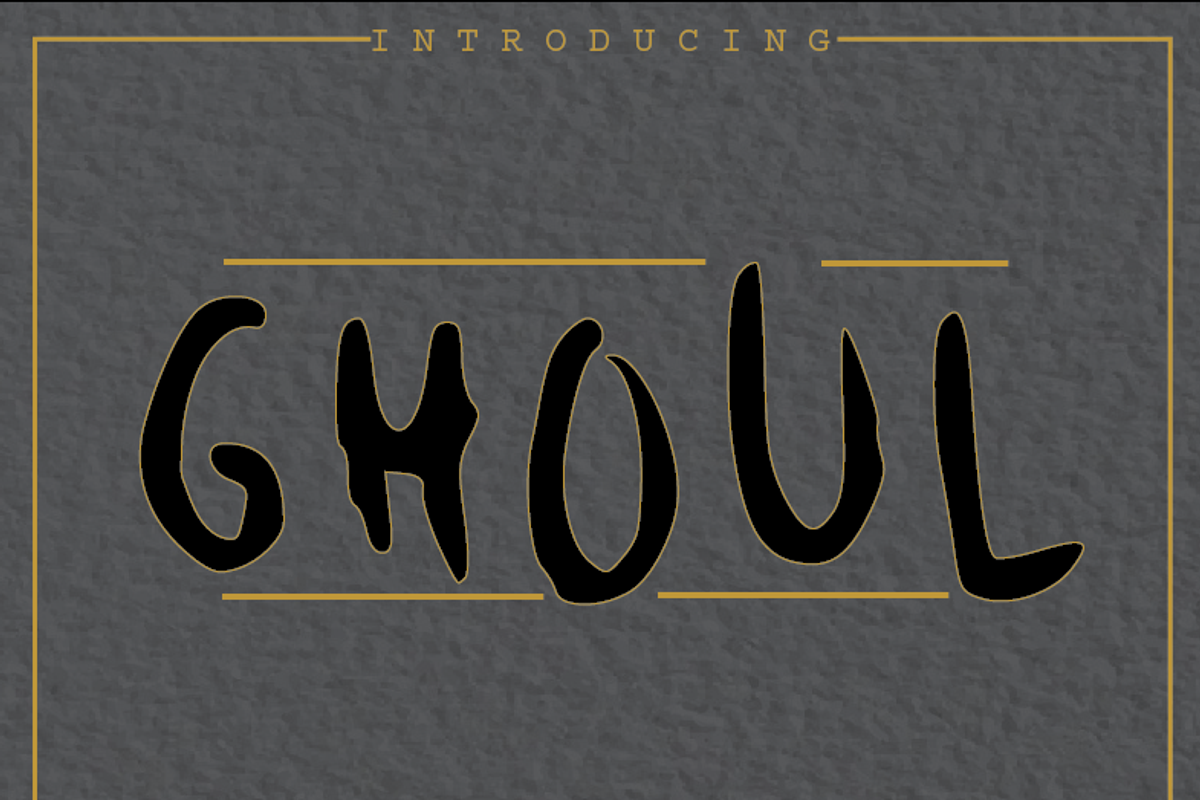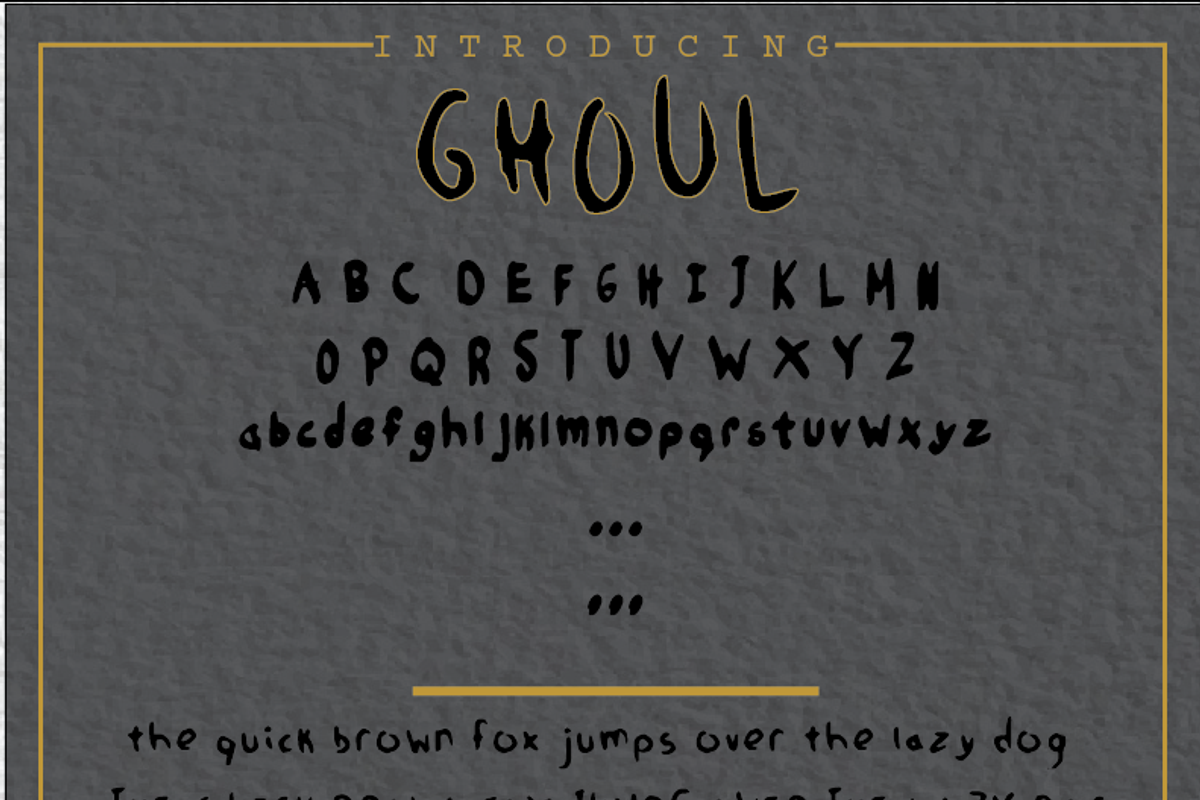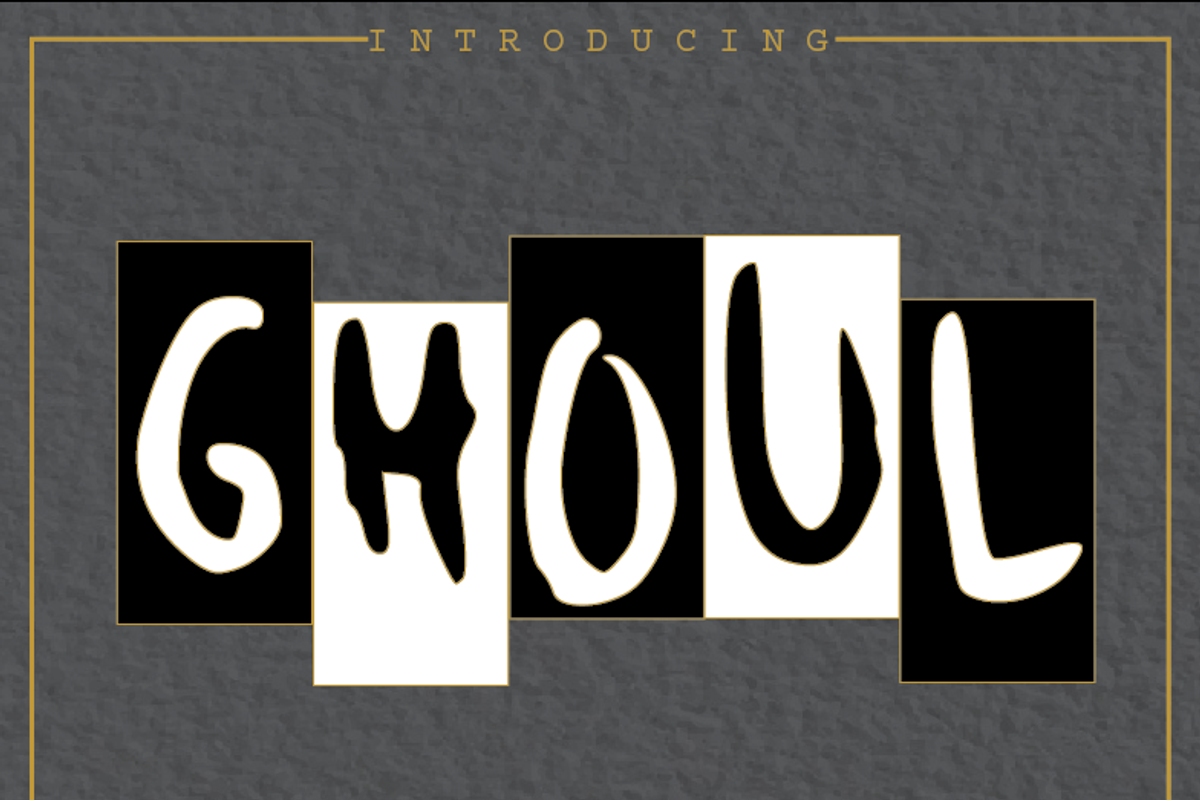
GHOUL FONT
GHOUL FONT by MVMG is a font selected for branding, posters, packaging, typography.
- The Ghoul font includes a full set of capital and lowercase letters.
Why GHOUL FONT is worth a look
GHOUL FONT by MVMG fits naturally into Branding, posters, packaging, typography.